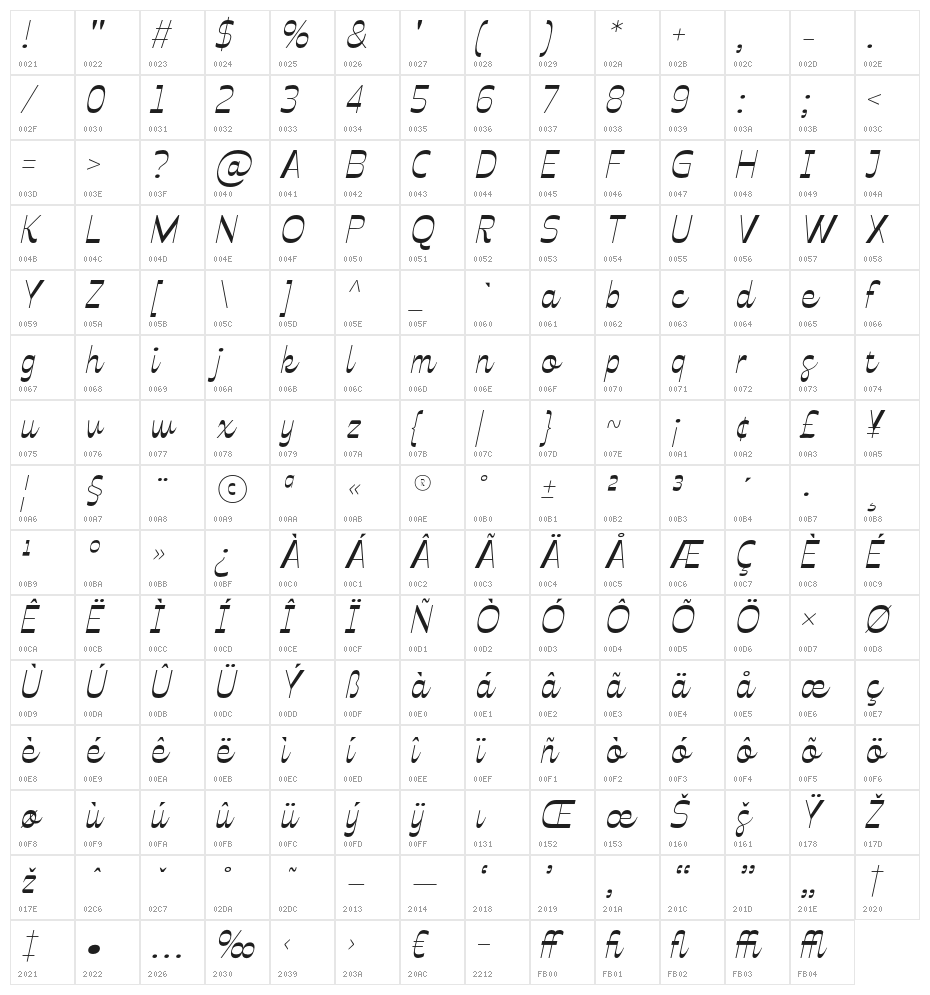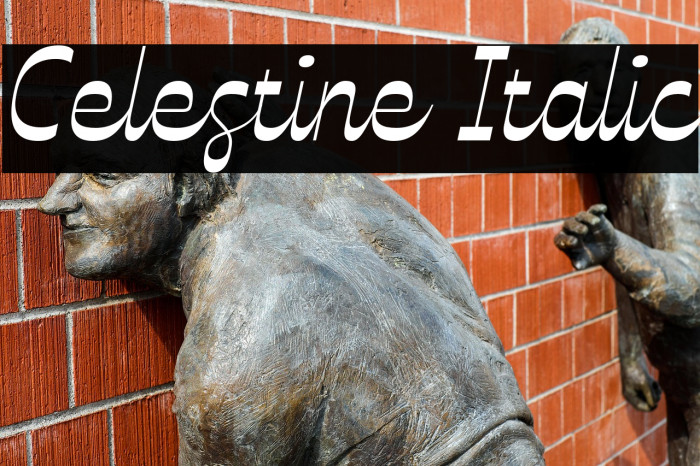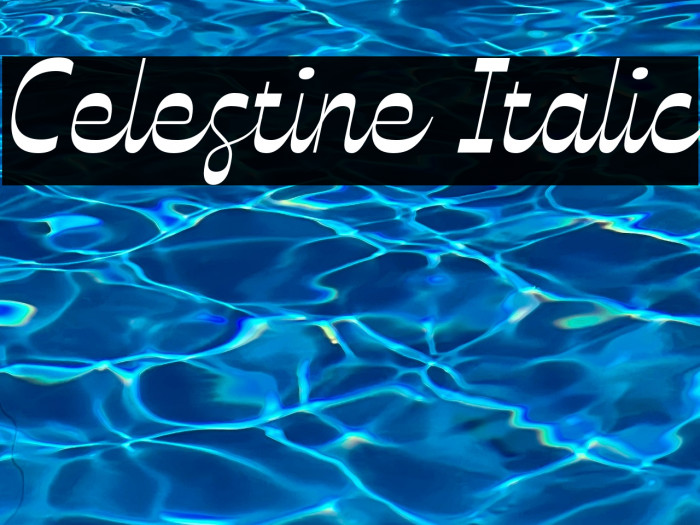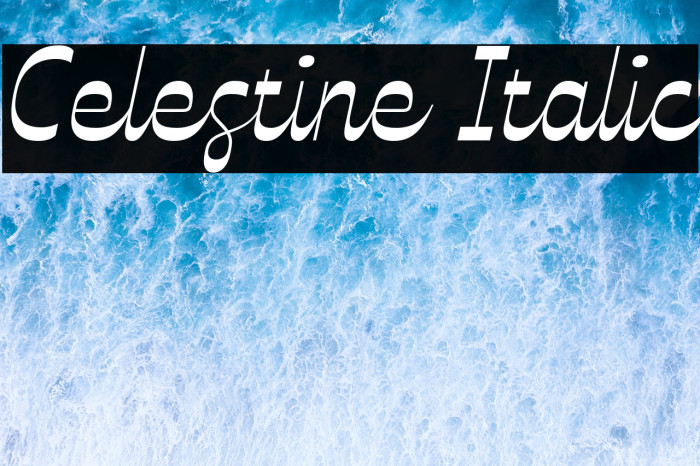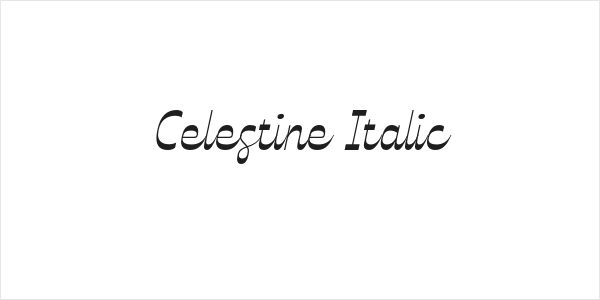
Celestine Italic Font
Celestine Italic Description
This font features a sleek, italicized style with a modern flair. The characters are slightly slanted, giving a sense of motion and elegance. The uppercase letters are tall and narrow, while the lowercase letters maintain a consistent flow with smooth curves. The numerals are bold and clear, ensuring readability. Special characters are designed with a similar slant, maintaining the cohesive look of the font. The overall design is clean and sophisticated, suitable for a variety of applications.
| Proposed Projects | Ideal for branding, fashion magazines, elegant invitations, and modern web design. |